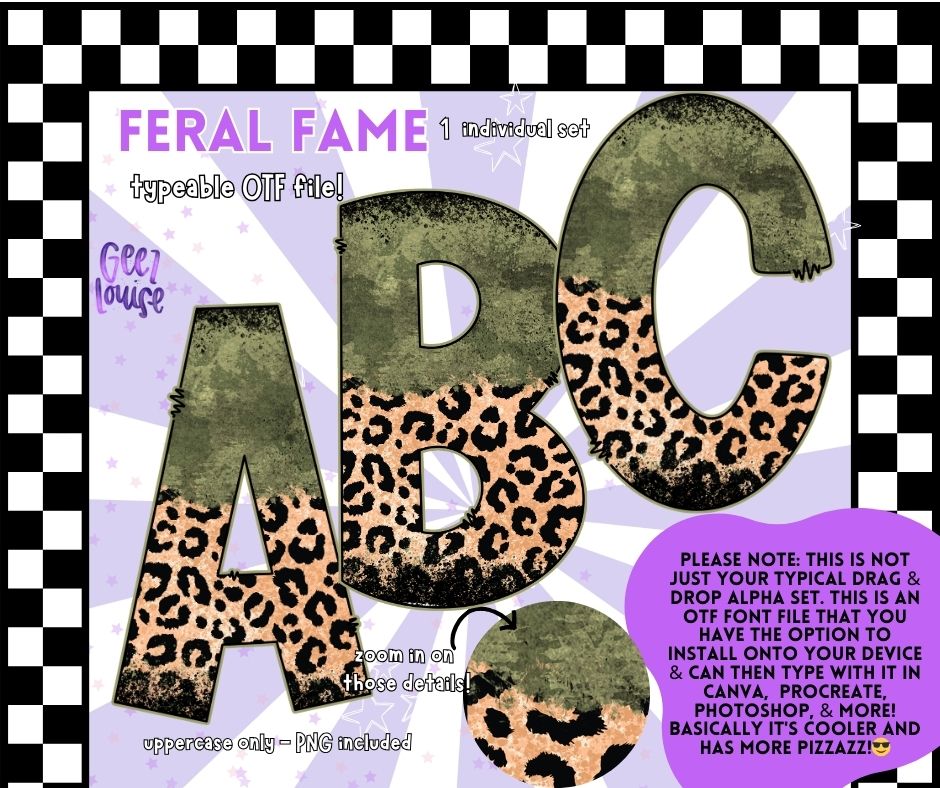
Feral Fame - Grunge Leopard OTF Font + PNG Alpha Set
Meet your new go-to for bold, wild, and unapologetic designs — the Feral Fame OTF Font! 🐆💚 With a mix of grungy olive green and fierce leopard print, this typeable sublimation font is perfect for edgy t-shirt designs, girl boss graphics, wild theme party decor, and bold branding that bites back.
✔️ Uppercase letters only for maximum impact
Perfect for boss babes, fearless designers, and anyone who’s done playing nice. 🐾🔥